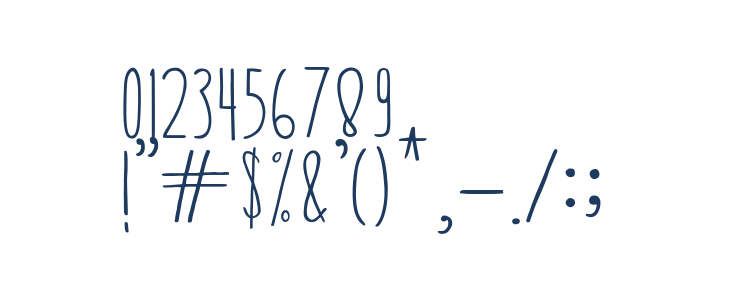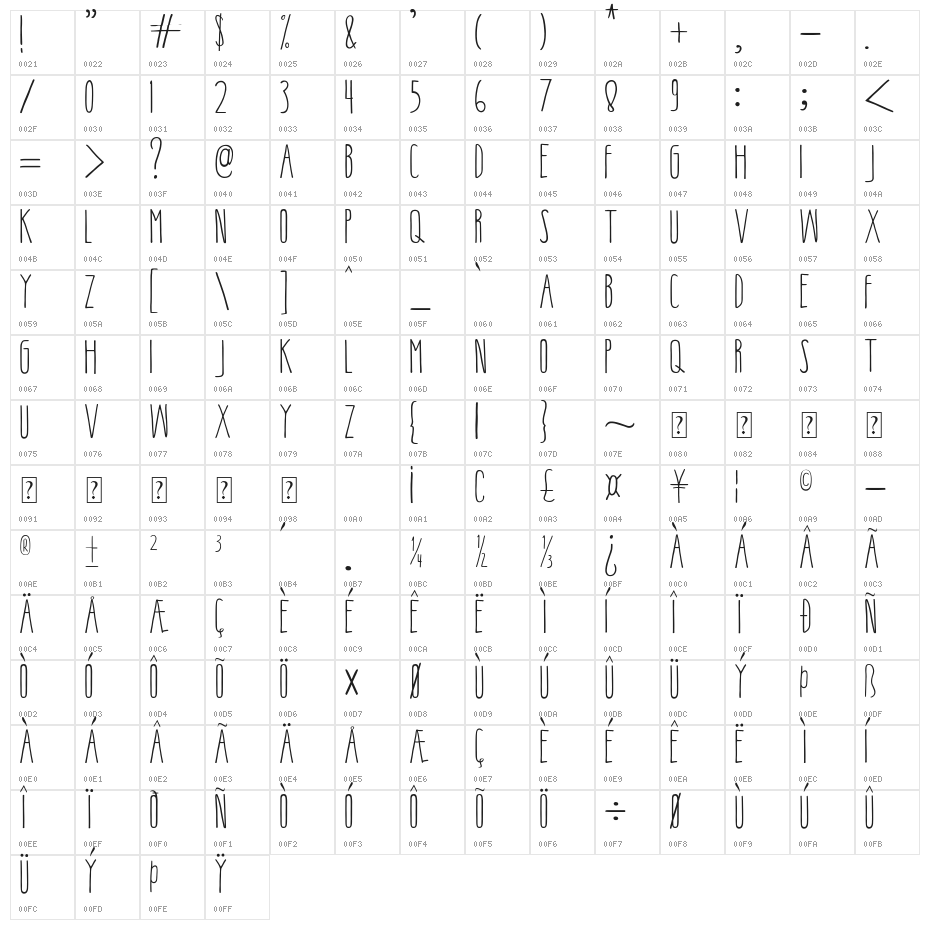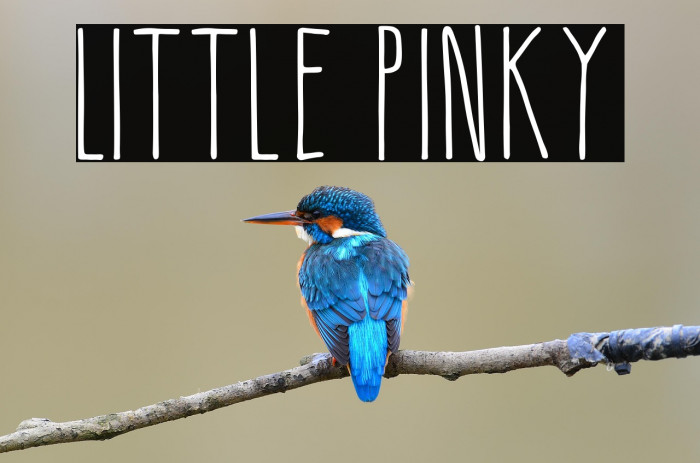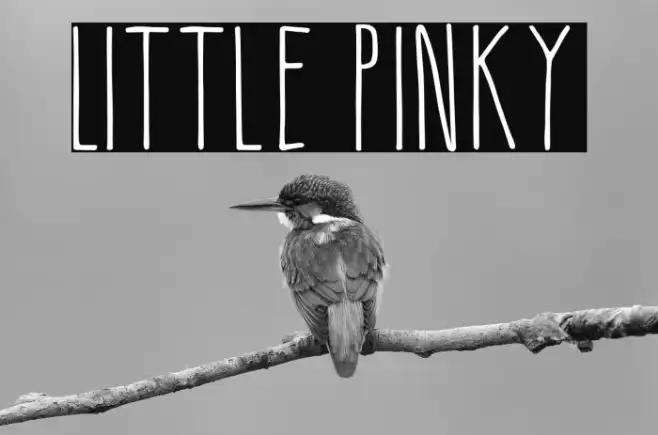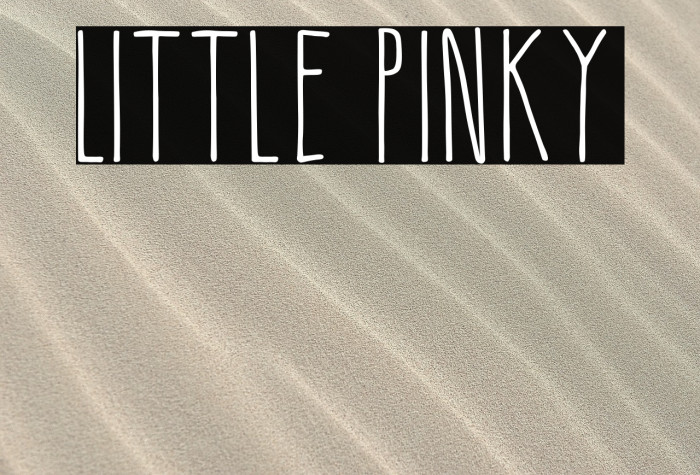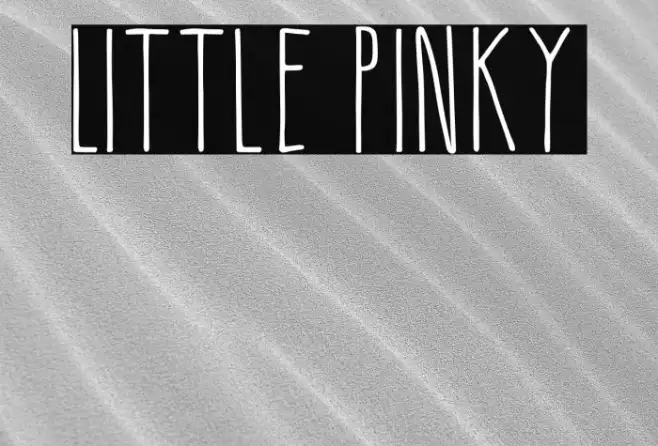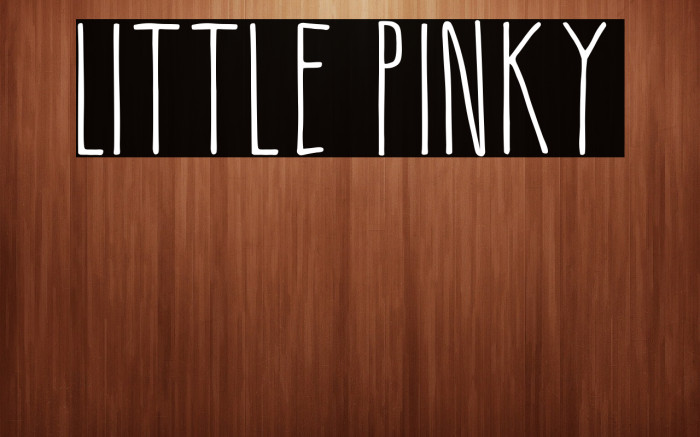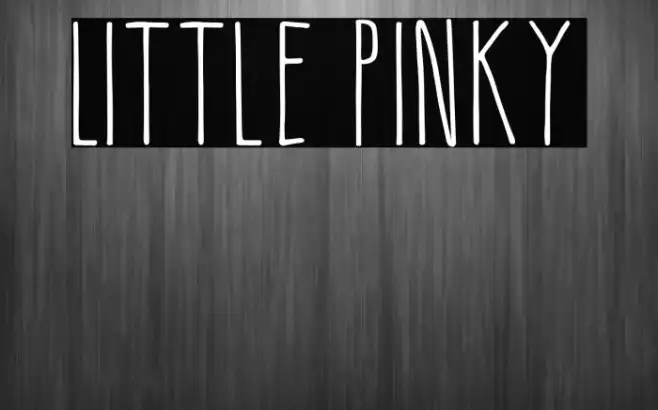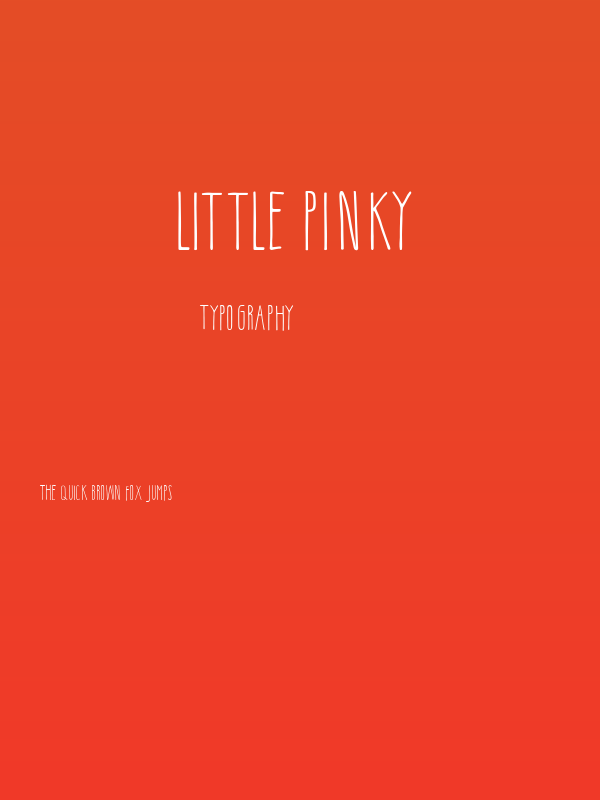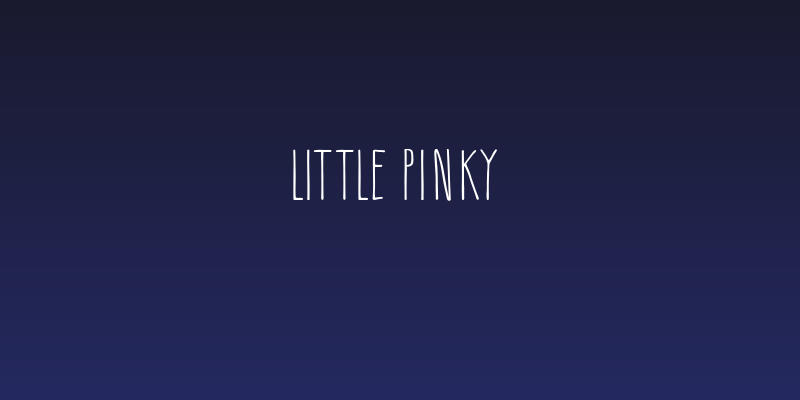
Little Pinky Font
Little Pinky Description
This font features a playful and whimsical design with tall, narrow letters that have a hand-drawn appearance. The strokes are consistent in width, giving it a uniform look, yet the slight irregularities in the line work add a charming, informal touch. The uppercase and lowercase letters maintain a consistent style, with elongated forms and rounded edges that contribute to its friendly and approachable feel. The numerals and special characters follow the same design principles, ensuring cohesion across all glyphs. This font's unique style makes it stand out, perfect for projects that require a personal, creative touch.
| Proposed Projects | Ideal for children's books, greeting cards, playful branding, and creative posters. |